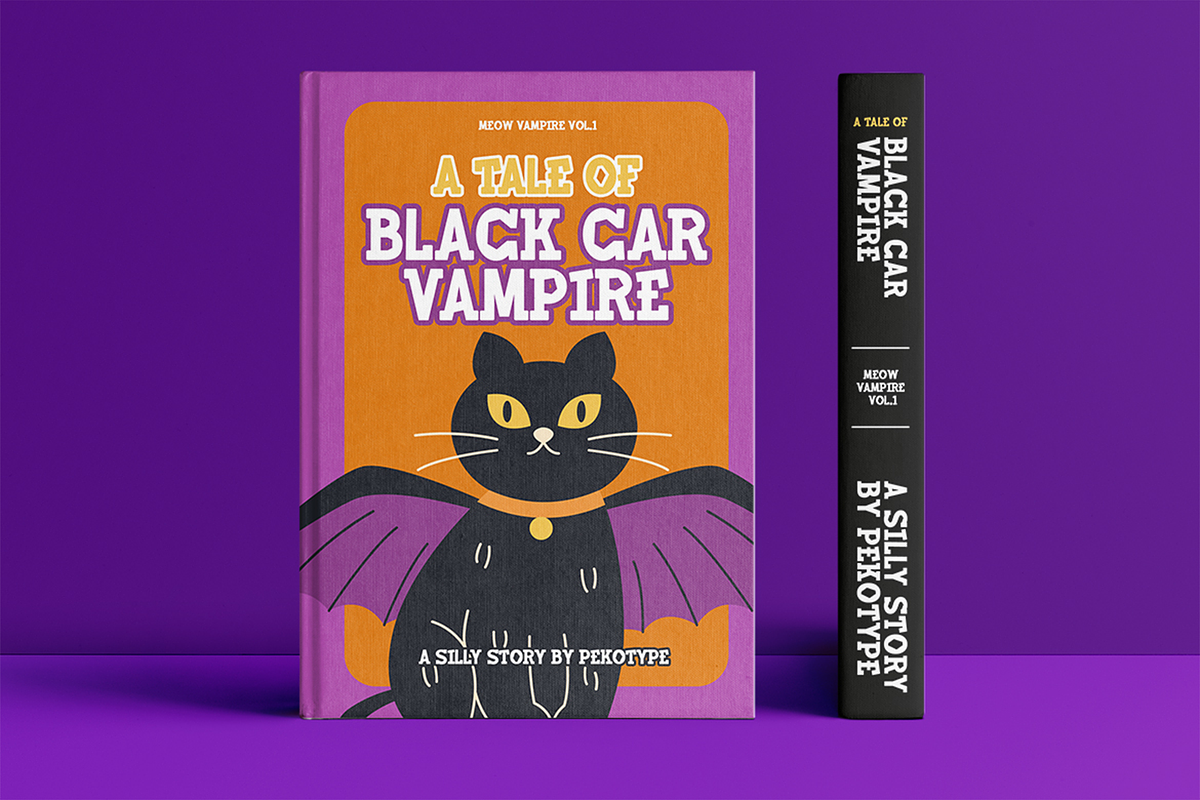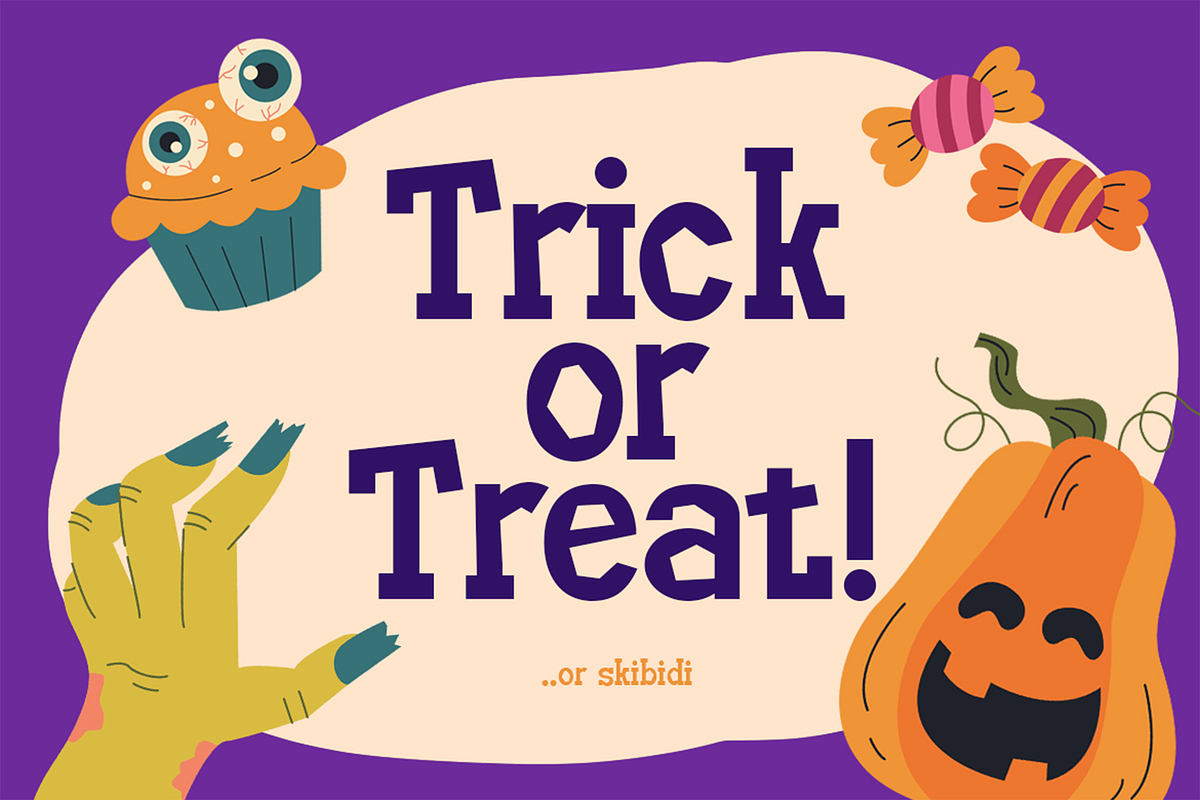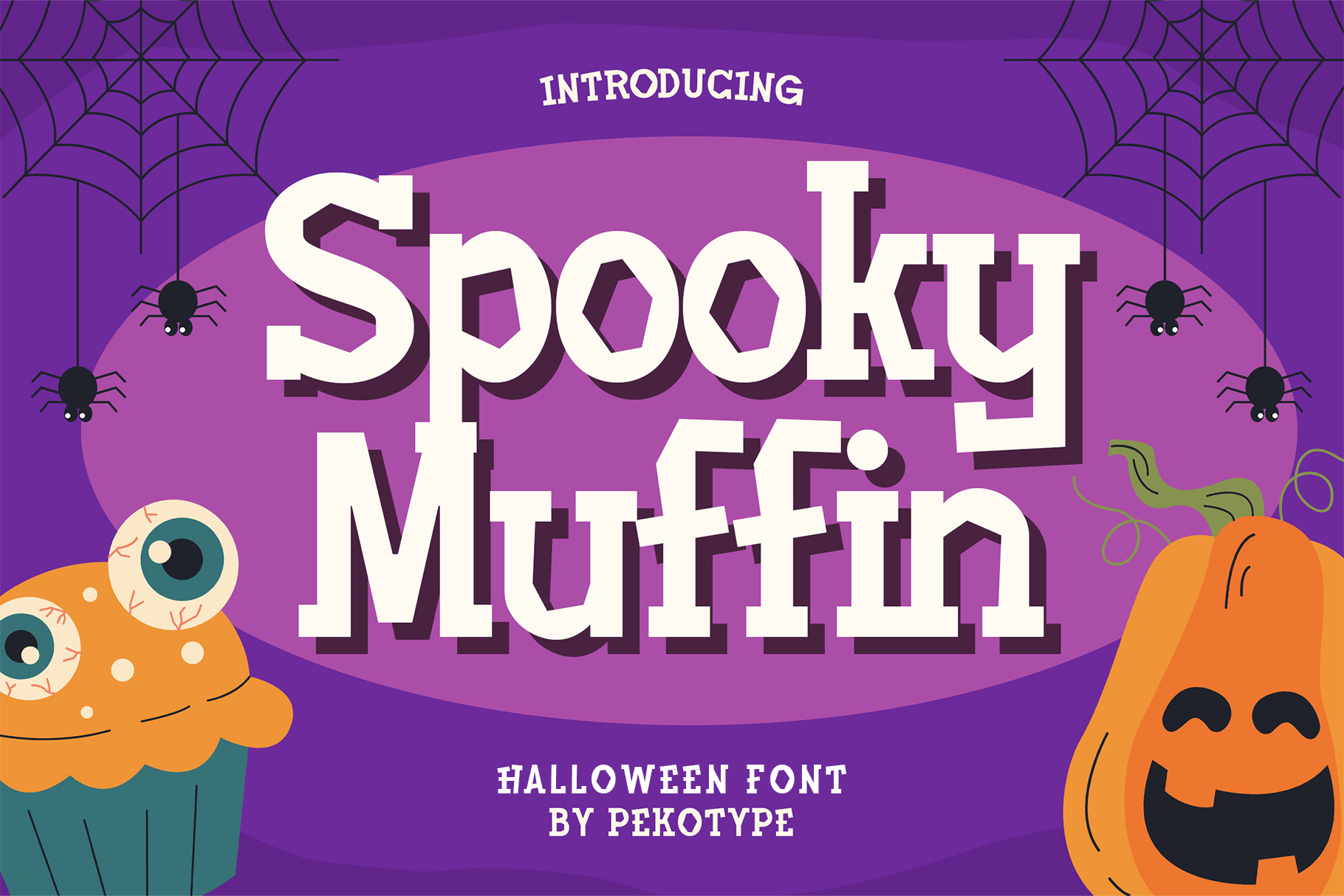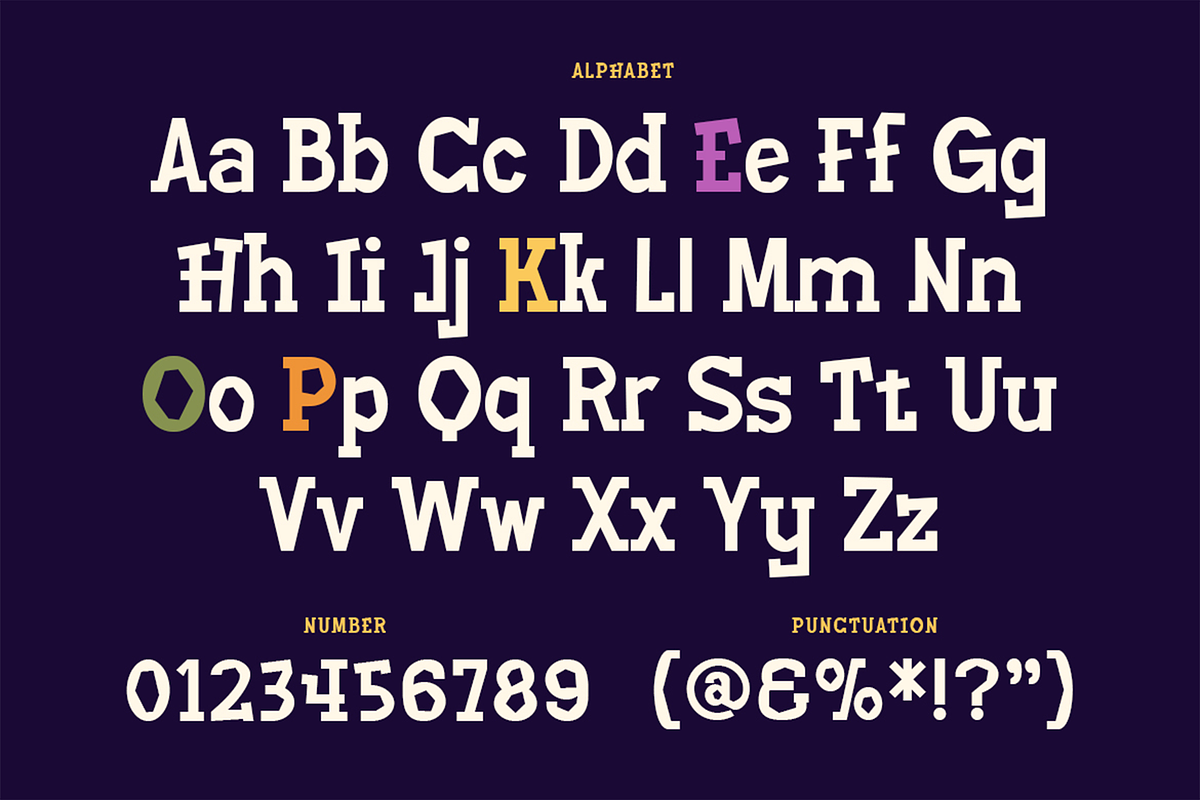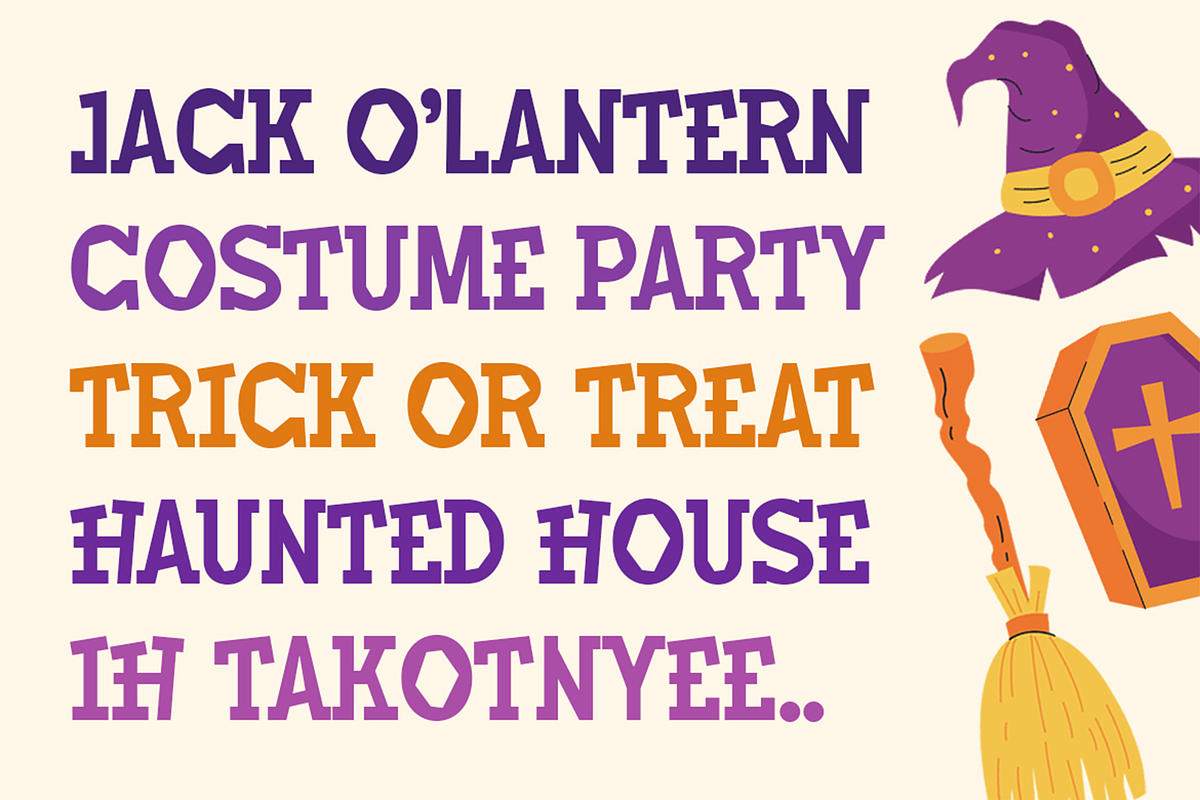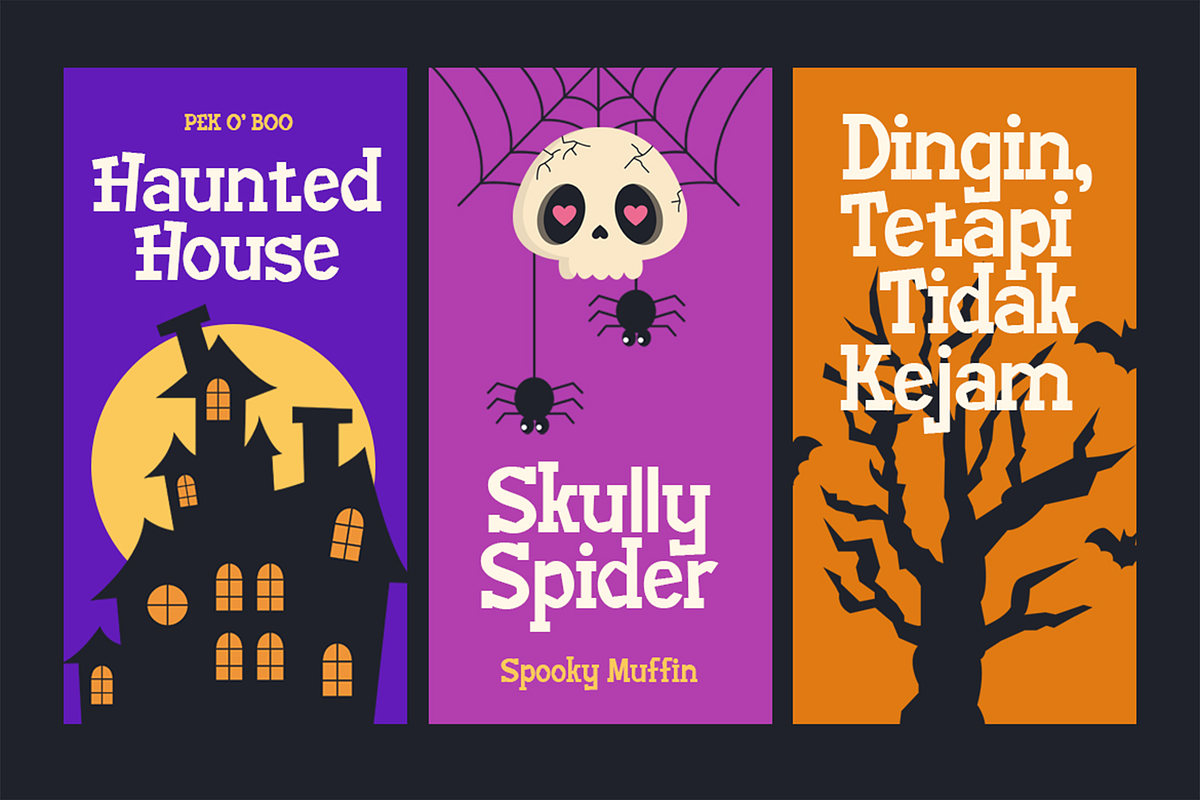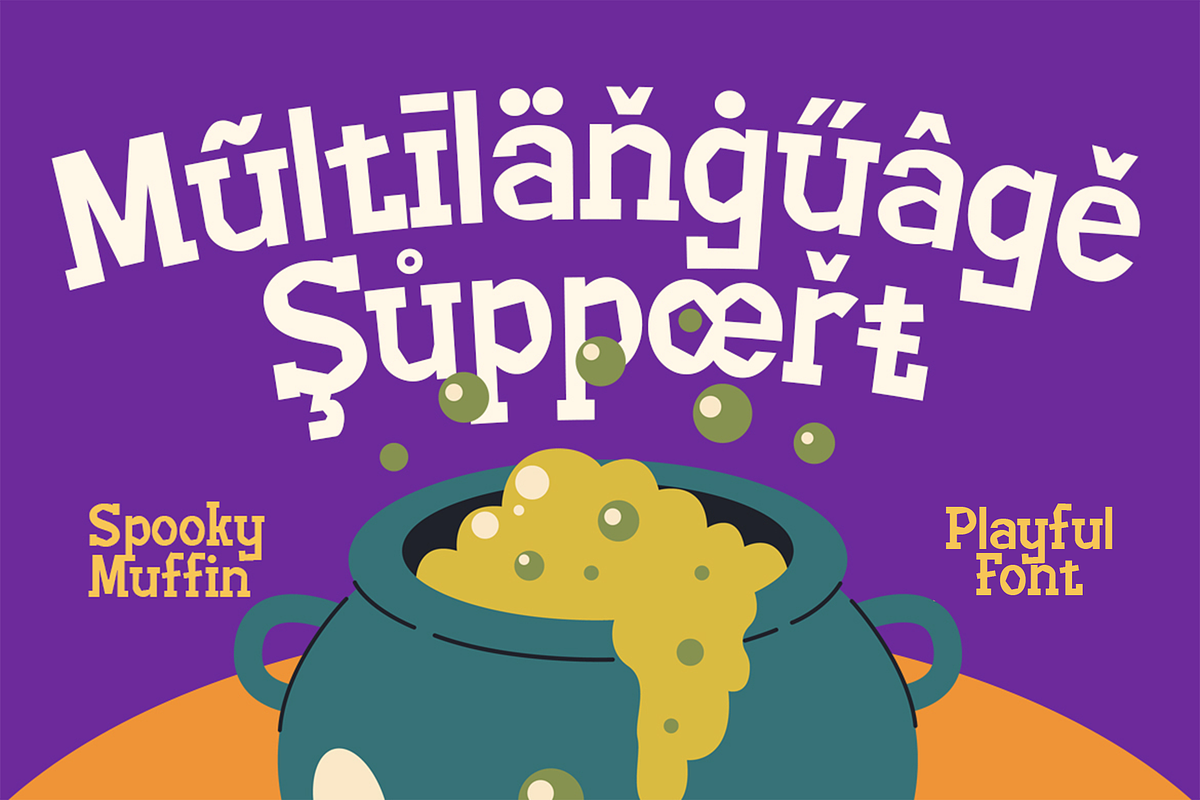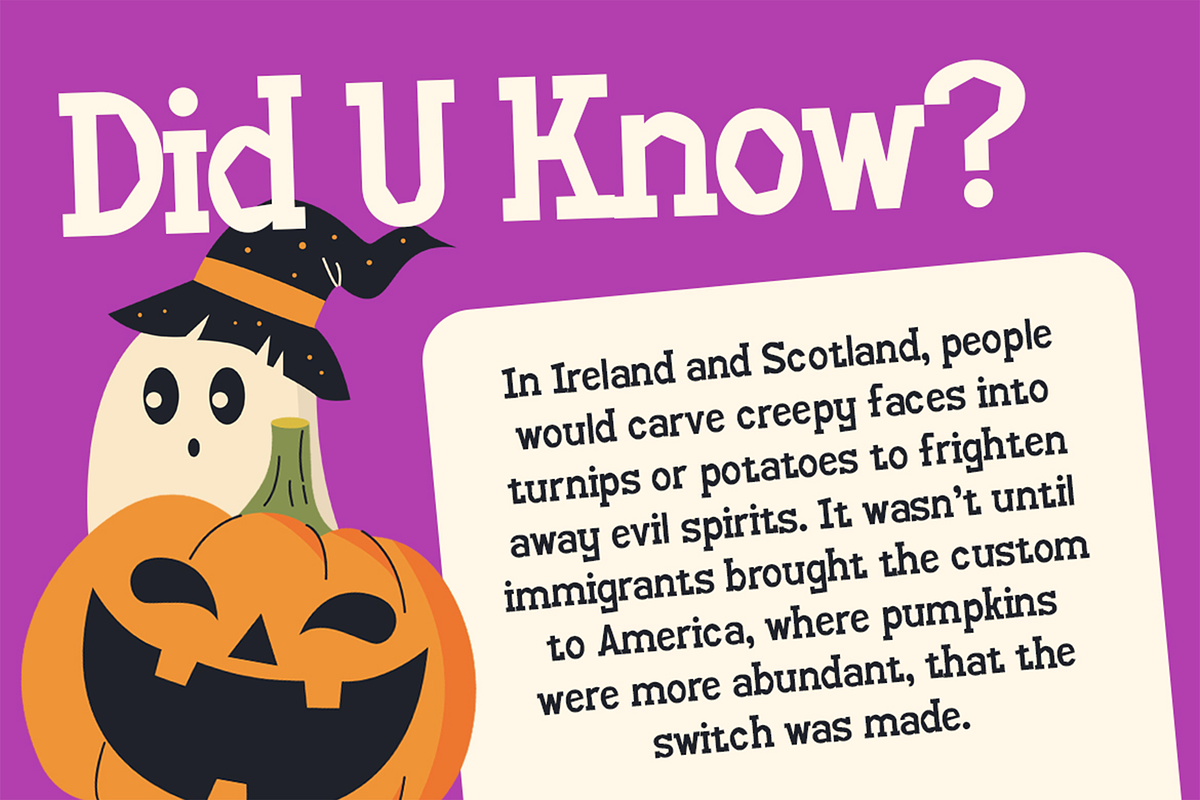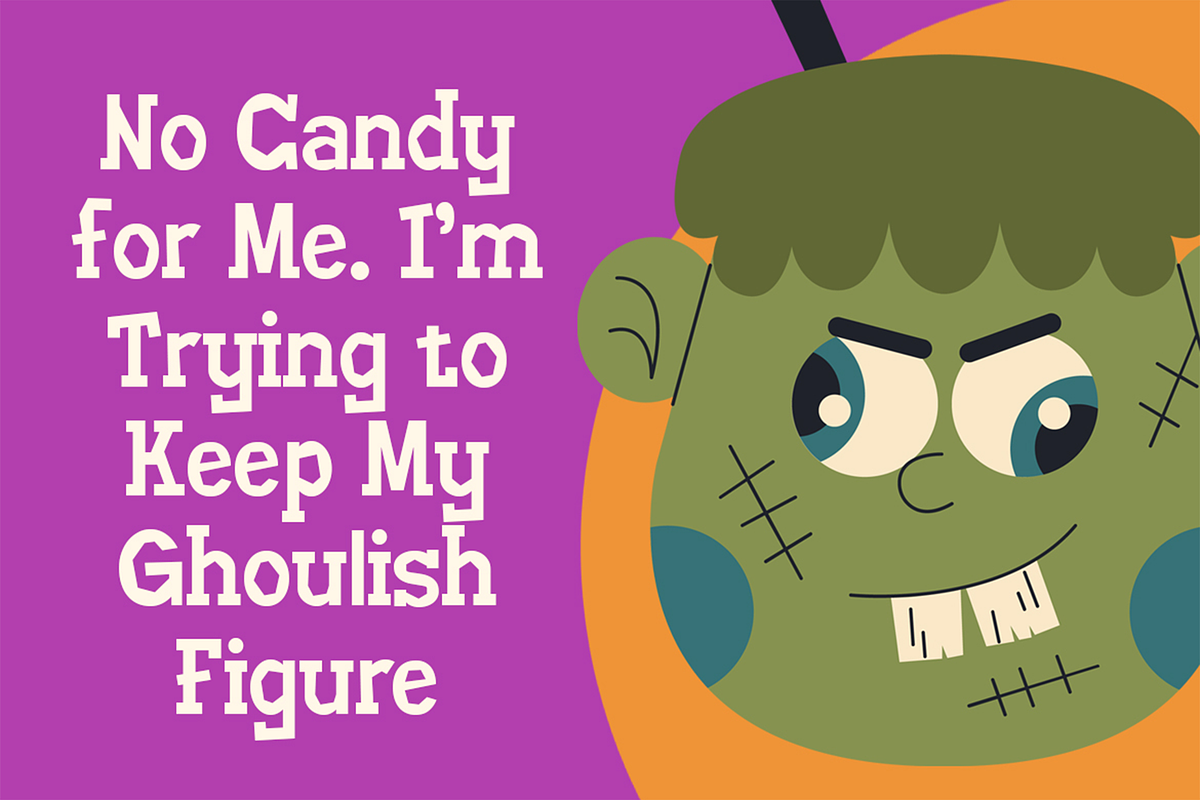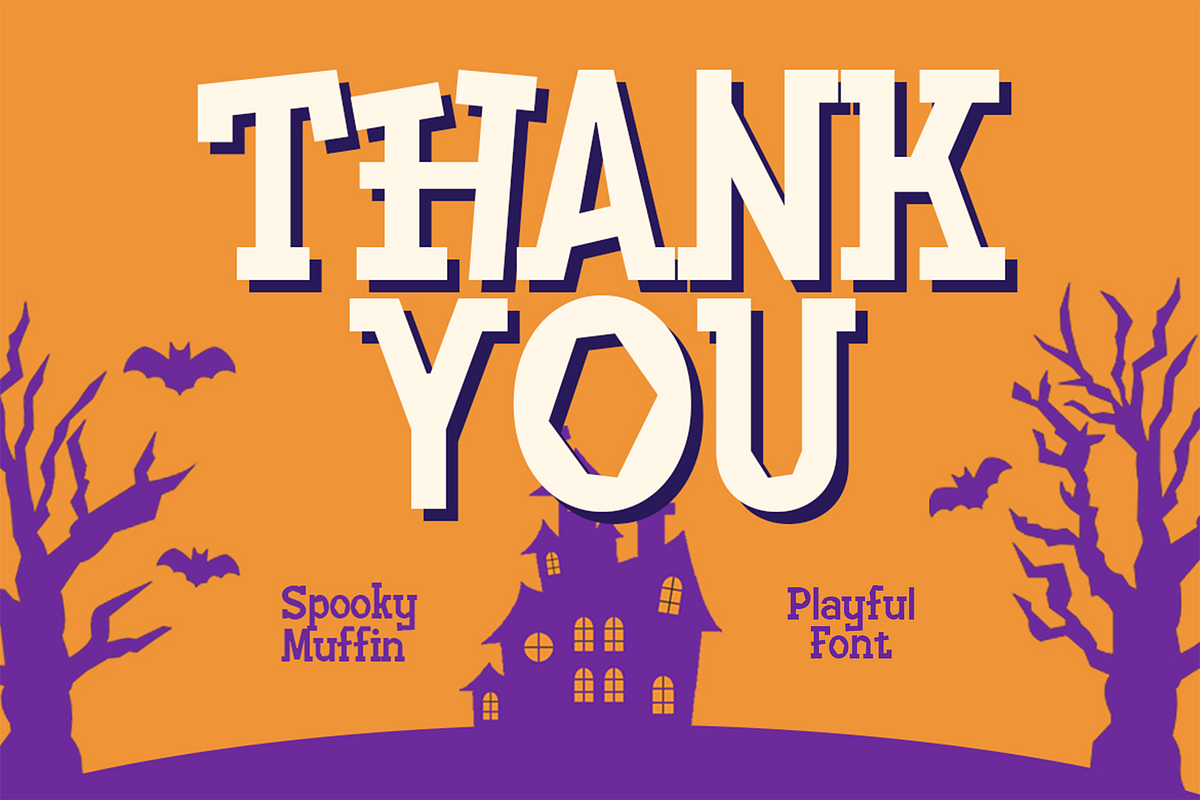
Spooky Muffin - Halloween Font
Get ready for a playful scare with SPOOKY MUFFIN! This quirky font adds a sweet and spooky touch to your Halloween designs. With its quirky curves and friendly spookiness, SPOOKY MUFFIN is ideal for Halloween posters, party invitations, and anything that needs a dash of festive fun. Get ready to enchant your audience with a typeface that's as fun as trick-or-treating and as irresistible as your favorite Halloween candy!